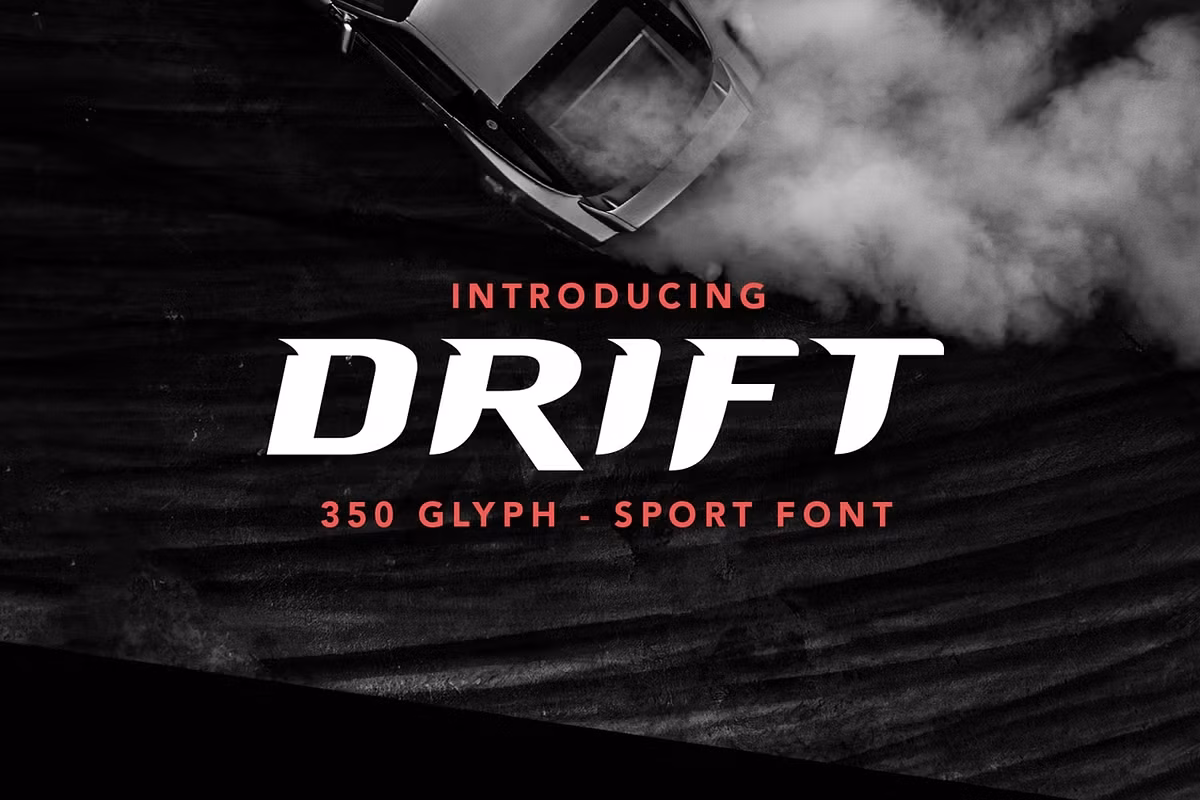
Modern, sleek, and effortlessly bold, Drift Typeface Free Download is a dynamic sans-serif font designed to deliver clean impact and high readability. Ideal for branding, headlines, logos, product packaging, and editorial design, Drift combines minimalist structure with confident style.
Its sharp edges and smooth curves give it a contemporary edge that works beautifully in both digital and print formats. Whether you're creating a tech-inspired layout or a sleek fashion brand, Drift offers the clarity and presence needed to elevate your design.